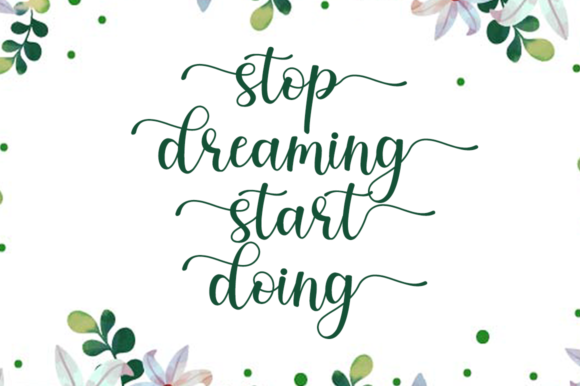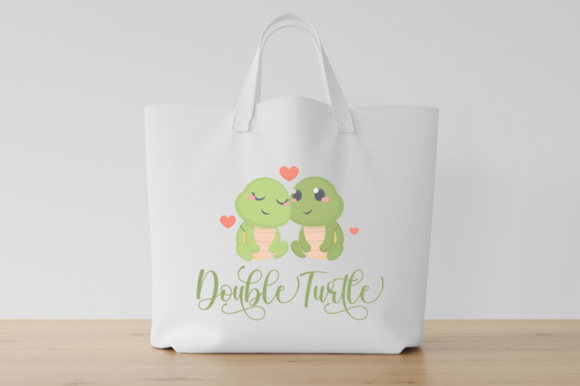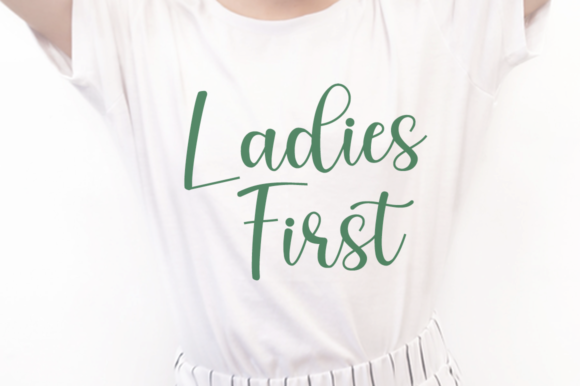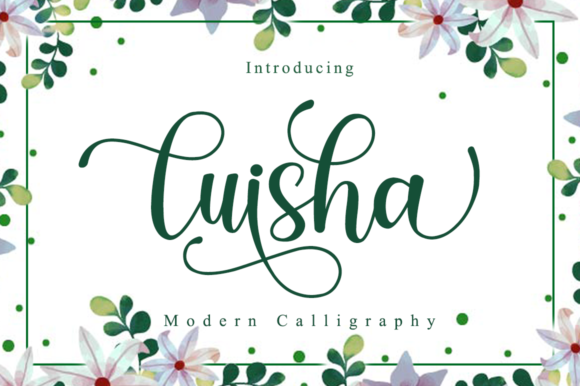
Introduction to Luisha Font
Luisha is a fancy, contemporary script font.
It features gorgeous swashes and ligatures that make this script incredibly versatile Whether you’re looking for fonts for Instagram or calligraphy scripts for DIY projects, Luisha will turn any creative idea into a true piece of art.
Luisha Font offers exceptional quality and versatility, making it a valuable addition to your design toolkit. Whether you’re creating for personal projects or commercial use, Luisha Font delivers professional results.